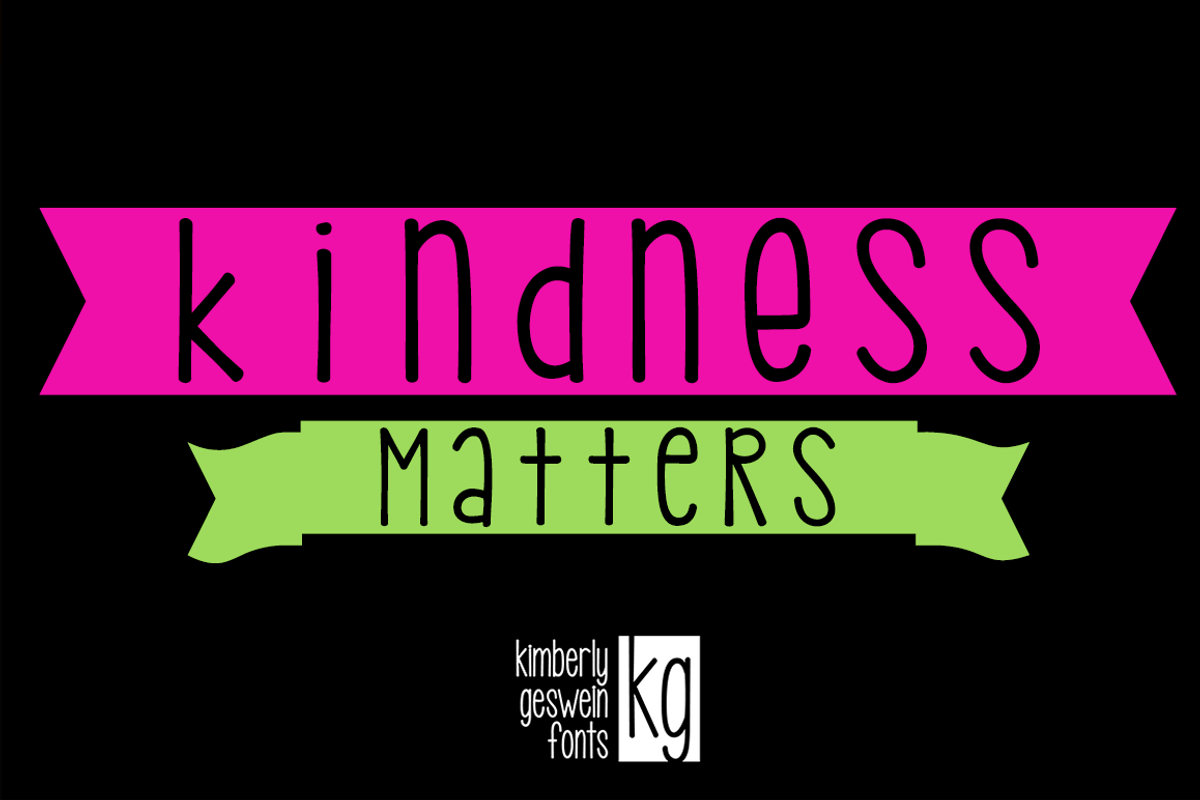
KG PDX Blocks Font
KG PDX Blocks Font by Kimberly Geswein Fonts is a font selected for branding, posters, packaging, typography.
Why KG PDX Blocks Font is worth a look
KG PDX Blocks Font by Kimberly Geswein Fonts fits naturally into Branding, posters, packaging, typography.